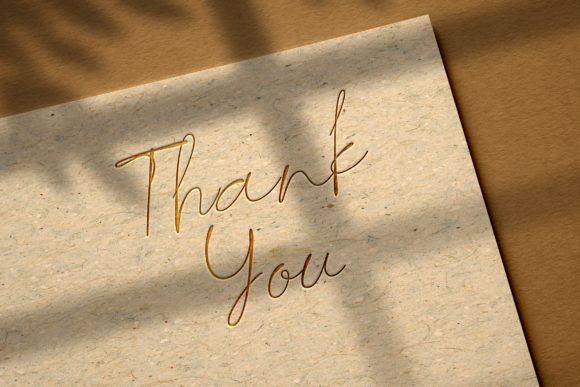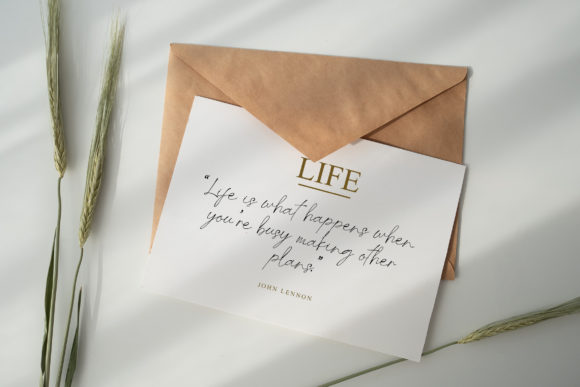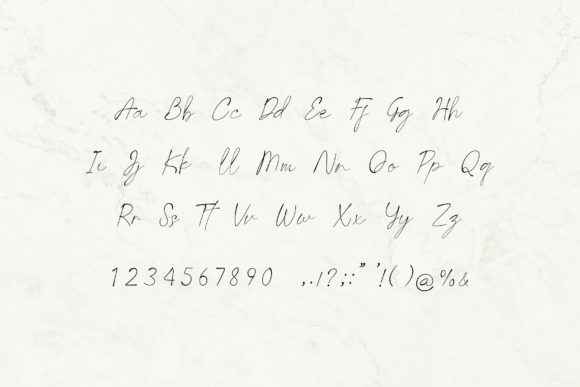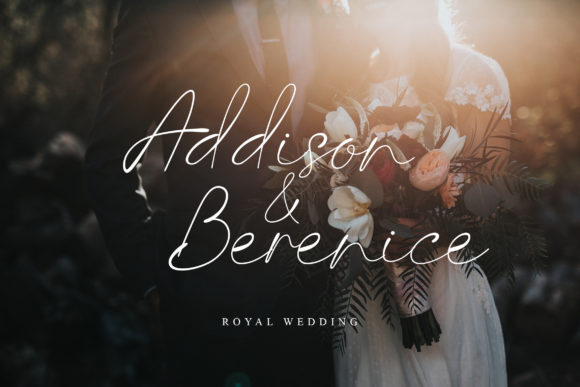
Introduction to Last Signature Font
Last Signature is a stylish and delicate script font.
It has a clean, thin and smooth vibe and it will be a hit for any design that you want to add it to .
Key Features of Last Signature Font
Why Choose Last Signature Font?